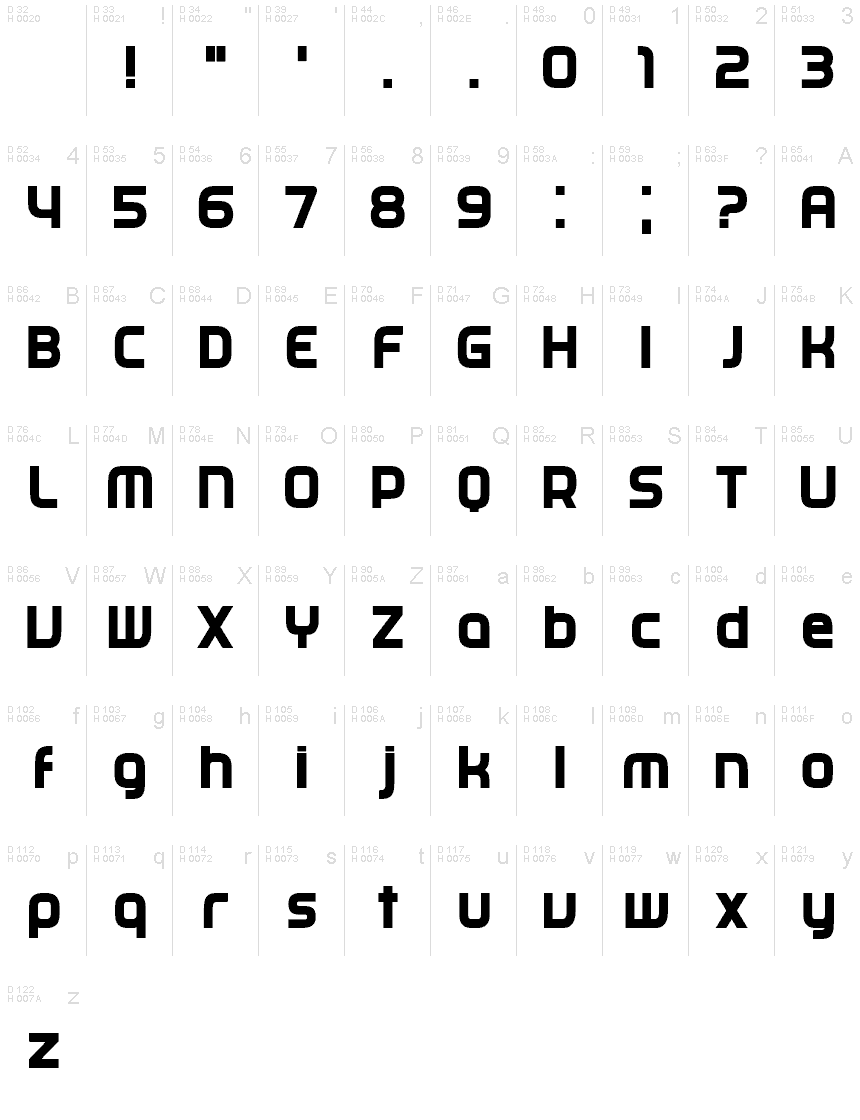
Pluto Regular
Pluto font is a free sans serif font created by Vladimir Nikolic. Characterized by a clean, modern style, this geometric typeface displays characters with uniformity and contemporary appeal – why it’s suitable to use for plenty of projects where readability is key.